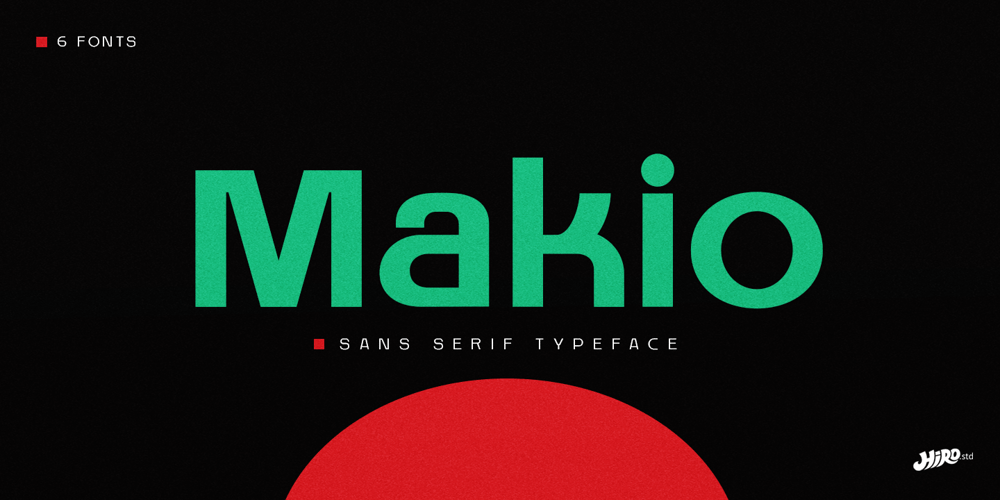
Makio Font Family was designed by Chairul Ashar and published by HIRO.std. Makio contains 6 styles and family package options. Makio is San Serif Typeface Makio inspired by modern life, clean, simple life, Japan culture, and minimalist symbols. This font works great in any branding, name card, logos, title, websites, product packaging, flyers, magazines, label, films, stationary, posters, etc. and any design project that requires clean, modern and simple touch. FEATURES- Six Weight- Uppercase and Lowercase letters- Support Opentype Features- Numbering and Punctuations- PUA Encoded Characters- Ligatures- Multilingual Support- Works on PC or MacEnjoy using!Thanks. HIRO.std